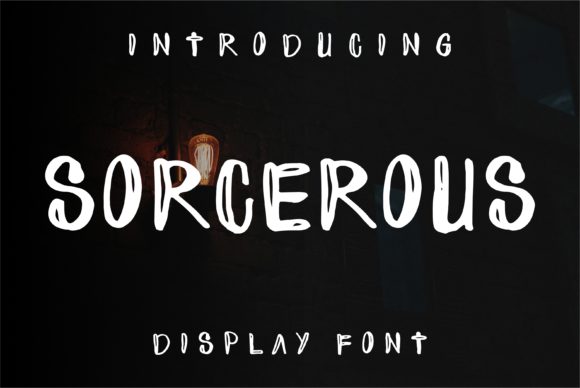
**Sorcerous: The Enchanting Display Font to Unleash Your Creative Sorcery**
Prepare to be spellbound by Sorcerous, a display font that will enchant your designs with its captivating strokes. This enigmatic font is meticulously crafted to evoke the ethereal beauty of a sorcerer's incantations, whispering magic into your every creation.
With its captivating glyphs and elegant curves, Sorcerous dances across your screen, conjuring visions of enchantment and mystery. Each letter is a mystical tapestry woven with the essence of ancient runes, promising to elevate your designs to realms of allure and wonder.
Whether you seek to enchant your branding, cast a spellbinding glow over your headings, or weave intricate spells with festival designs, Sorcerous is the font that will grant your creative desires. Its versatility is a sorcerer's elixir, transforming ordinary designs into masterpieces of enchantment.
Unleash the power of Sorcerous and watch as it conjures a world of imagination and fascination. Let your designs take flight on the wings of this captivating font, captivating your audience with its enchanting allure.
**Embrace the Sorcerous Spell and Cast the Magic of Enthrallment**
Step into the sorcerer's realm and embrace the power of Sorcerous. This spellbinding font is not merely a tool; it is a companion on your creative journey, guiding you through uncharted territories of design.
With every stroke of this enchanting font, feel the magic coursing through your veins. Allow its captivating curves to ignite your imagination and weave tales of wonder that transcend the ordinary.
Sorcerous is more than a display font; it is a doorway to a world of enchantment, where your designs will dance with the grace of a sorcerer's incantations. Download Sorcerous today and unlock the secrets of enthrallment. Let your creativity soar on the wings of this captivating font, leaving an unforgettable mark on the hearts of your audience.